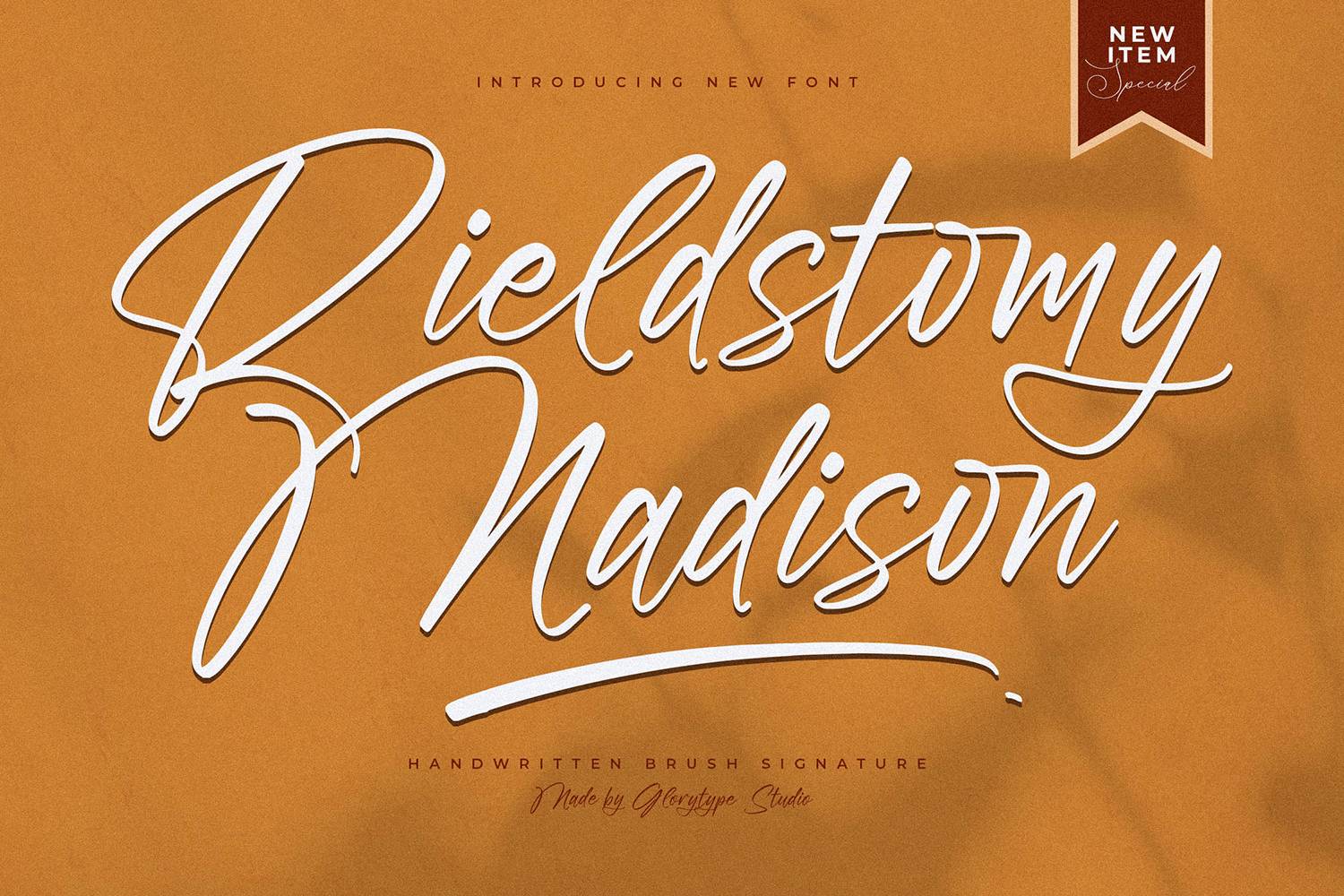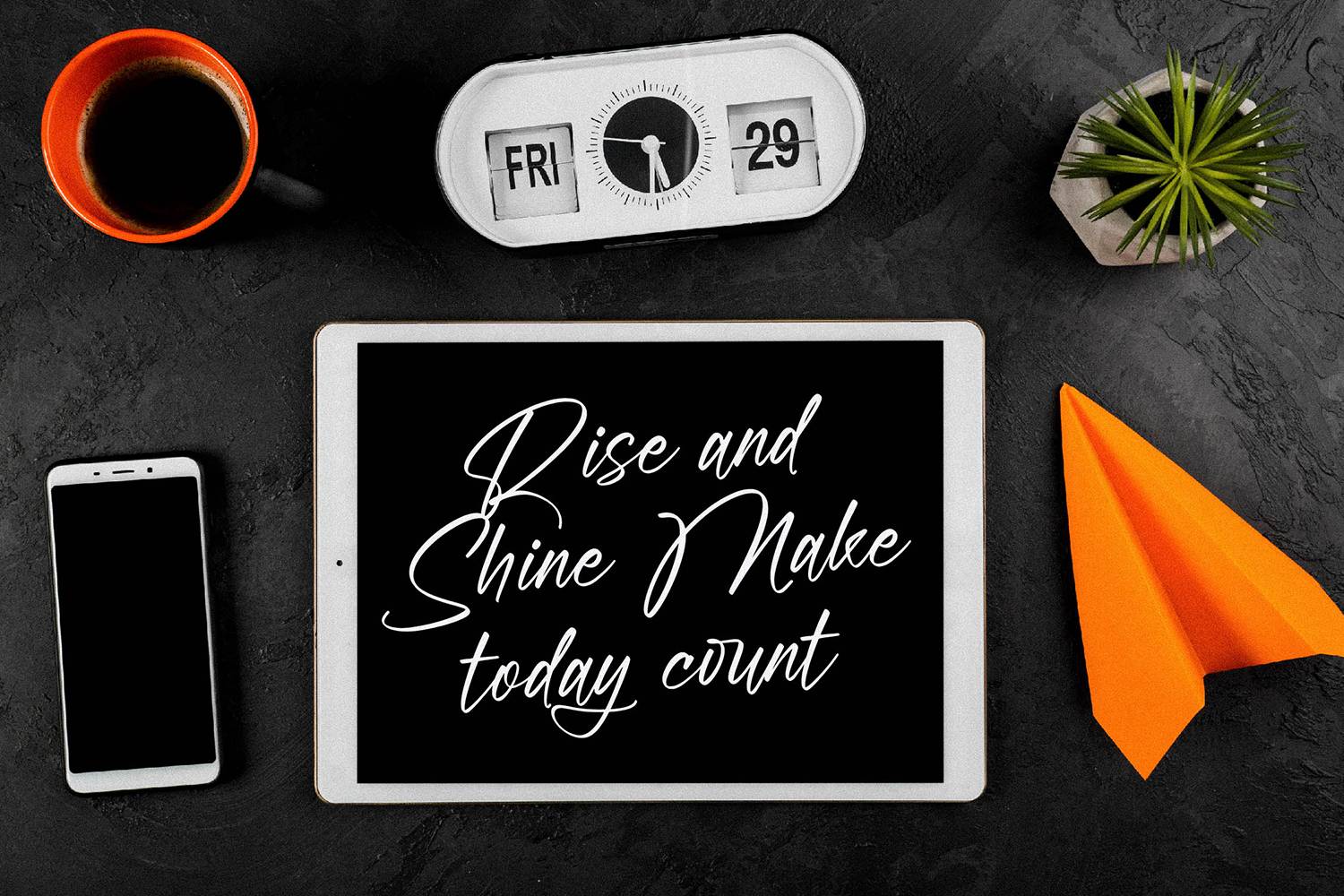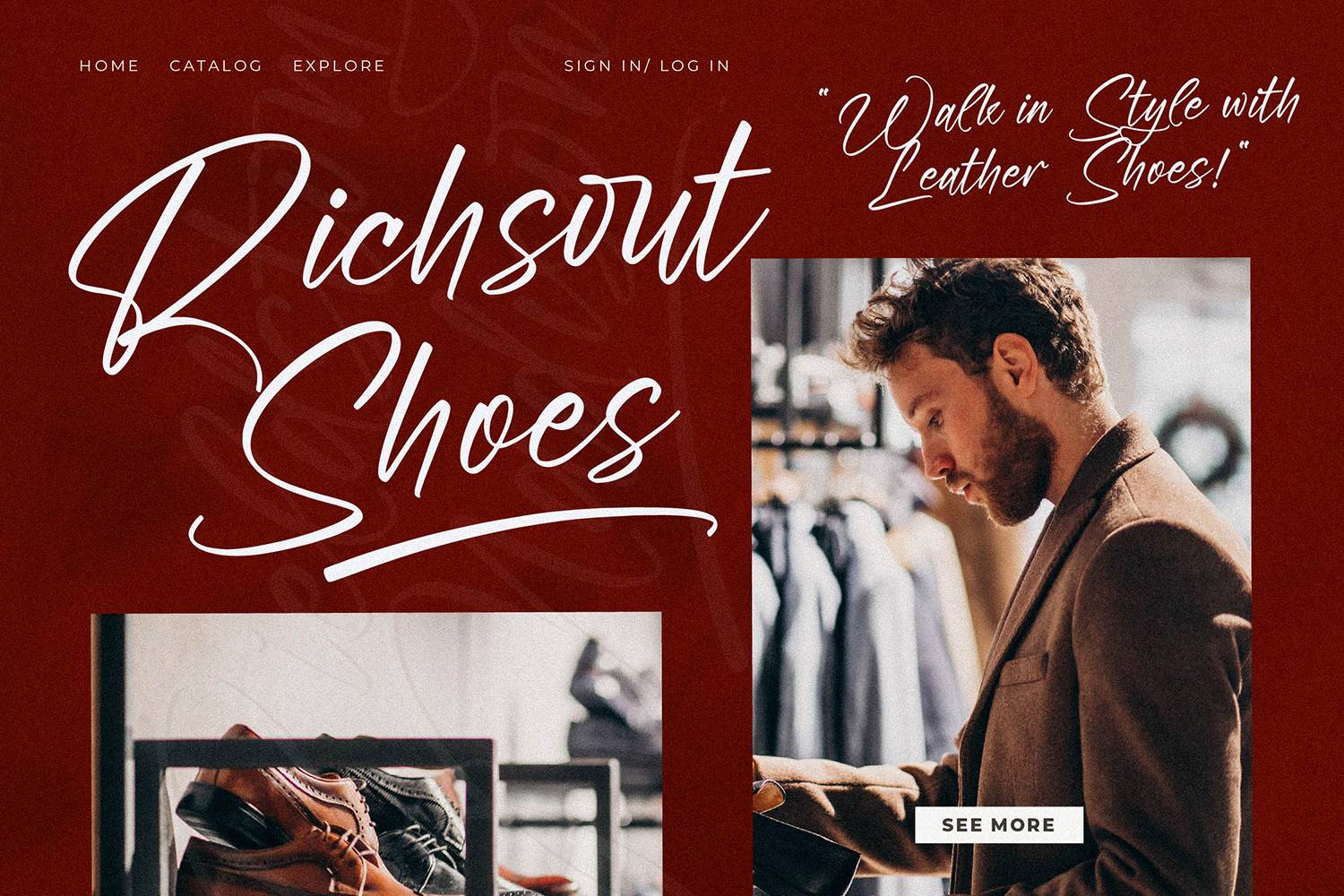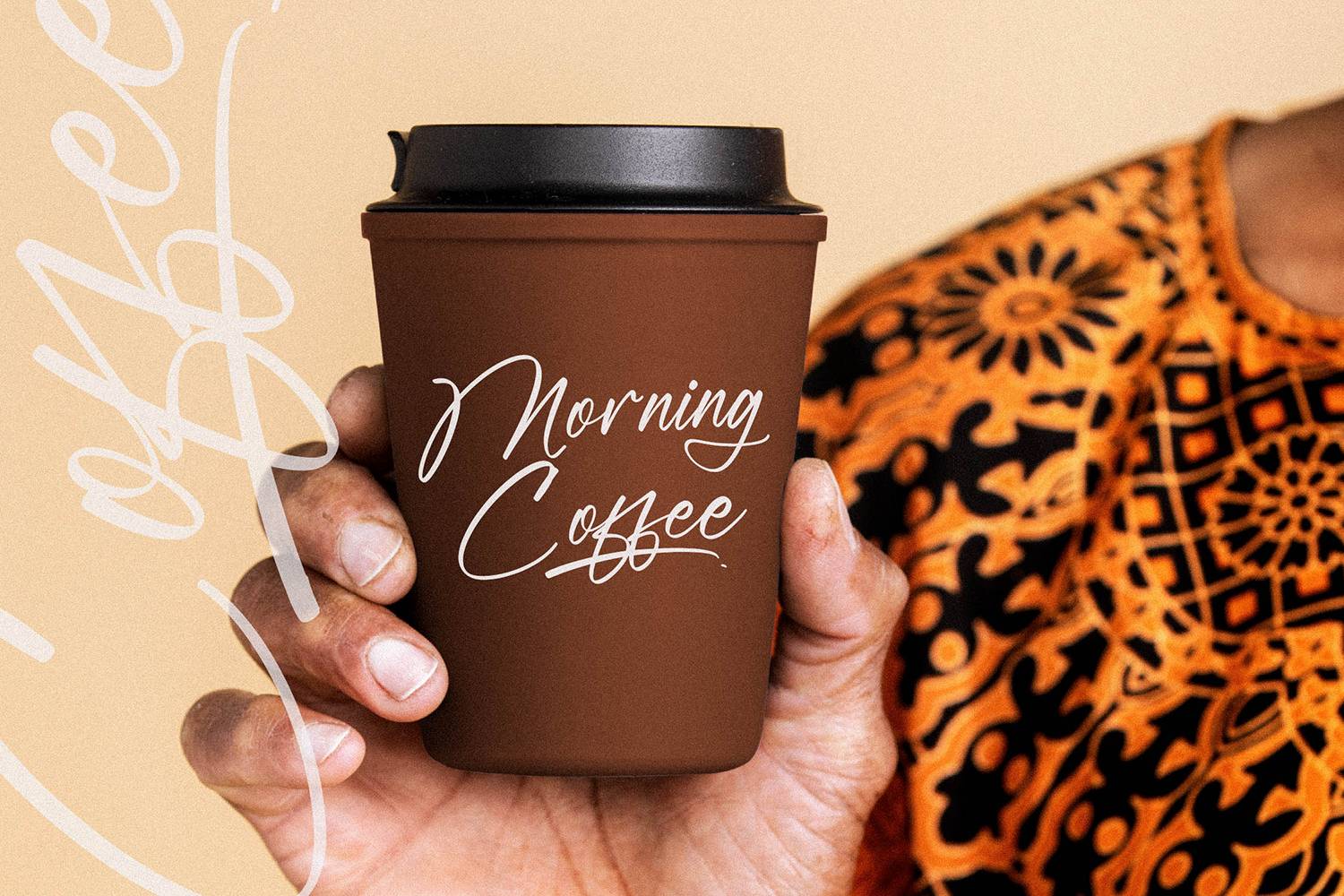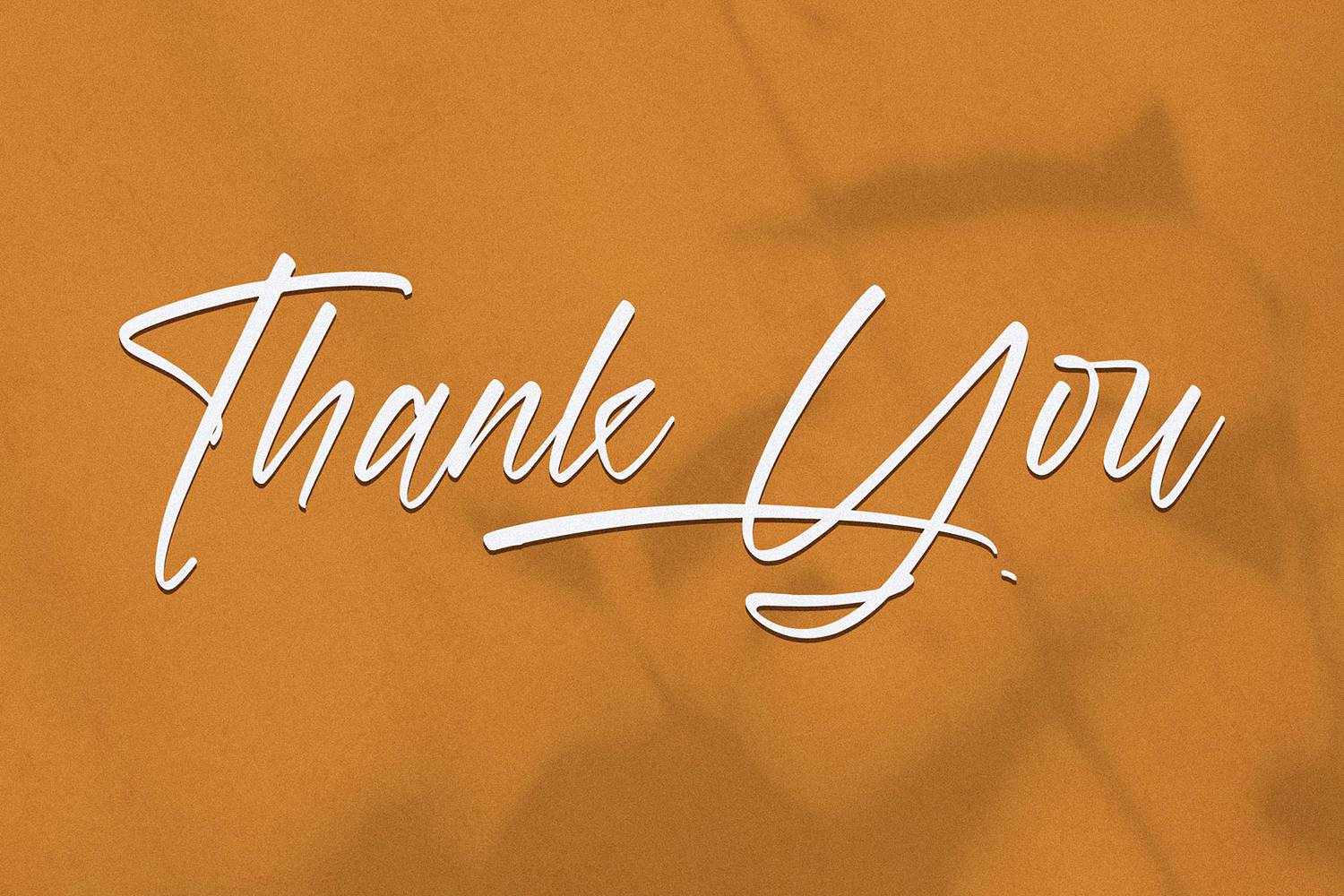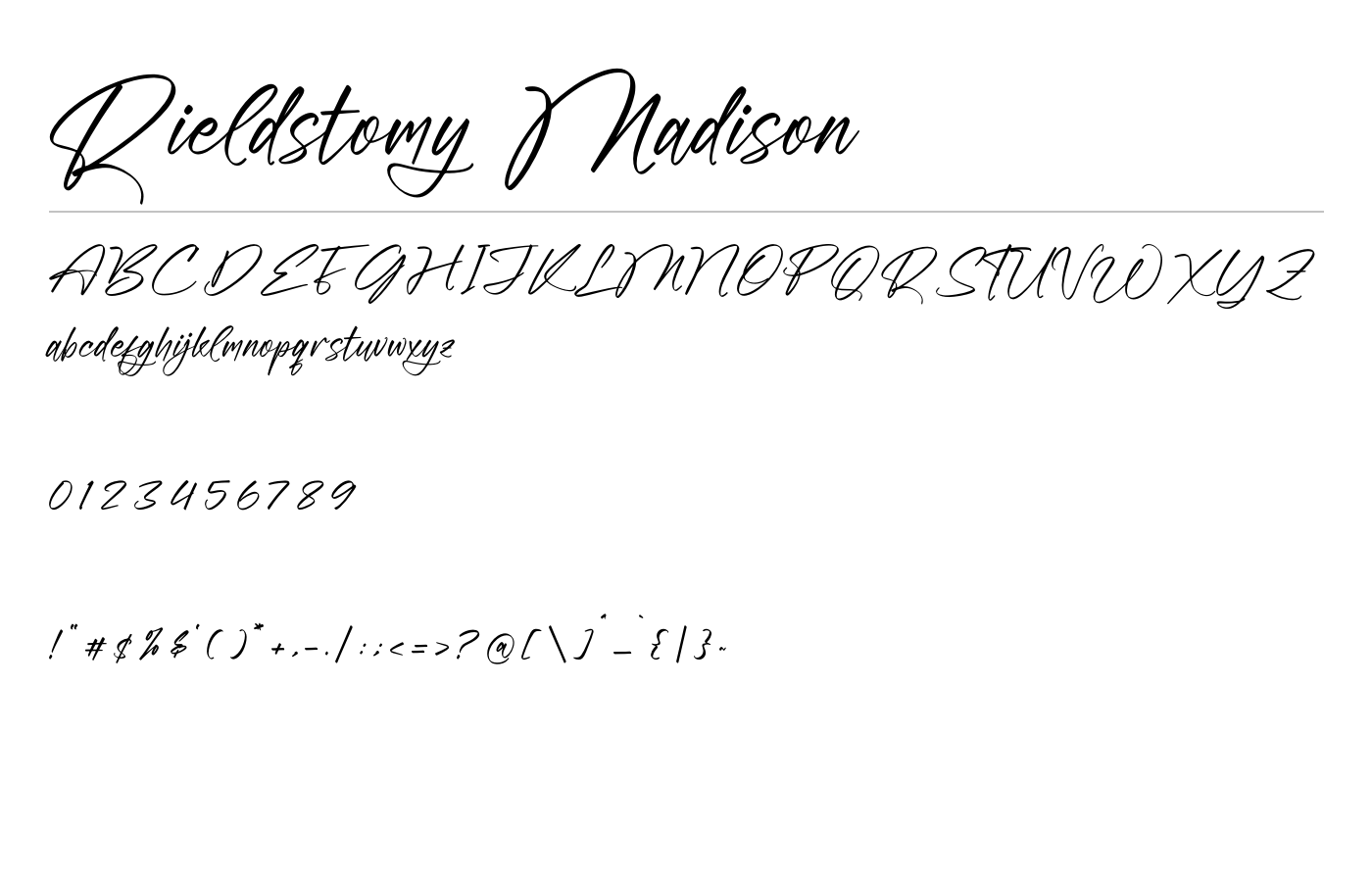
Rieldstomy Madison is a delicate and elegant script font featuring smooth, flowing strokes that mimic natural handwriting with a refined flair. Its slender weight and high contrast between thick and thin lines give it a sophisticated, graceful personality perfect for wedding invitations, branding, and stylish editorial use. This font works best in designs that require a personal and luxurious touch, emphasizing elegance and creativity.
Rieldstomy Madison Font
About Rieldstomy Madison Font